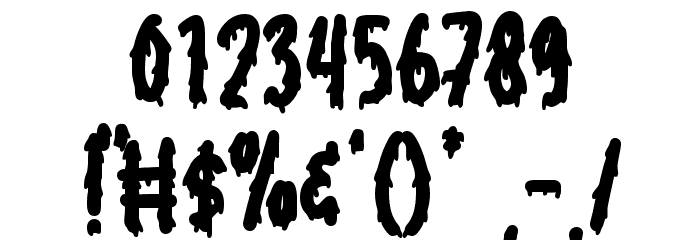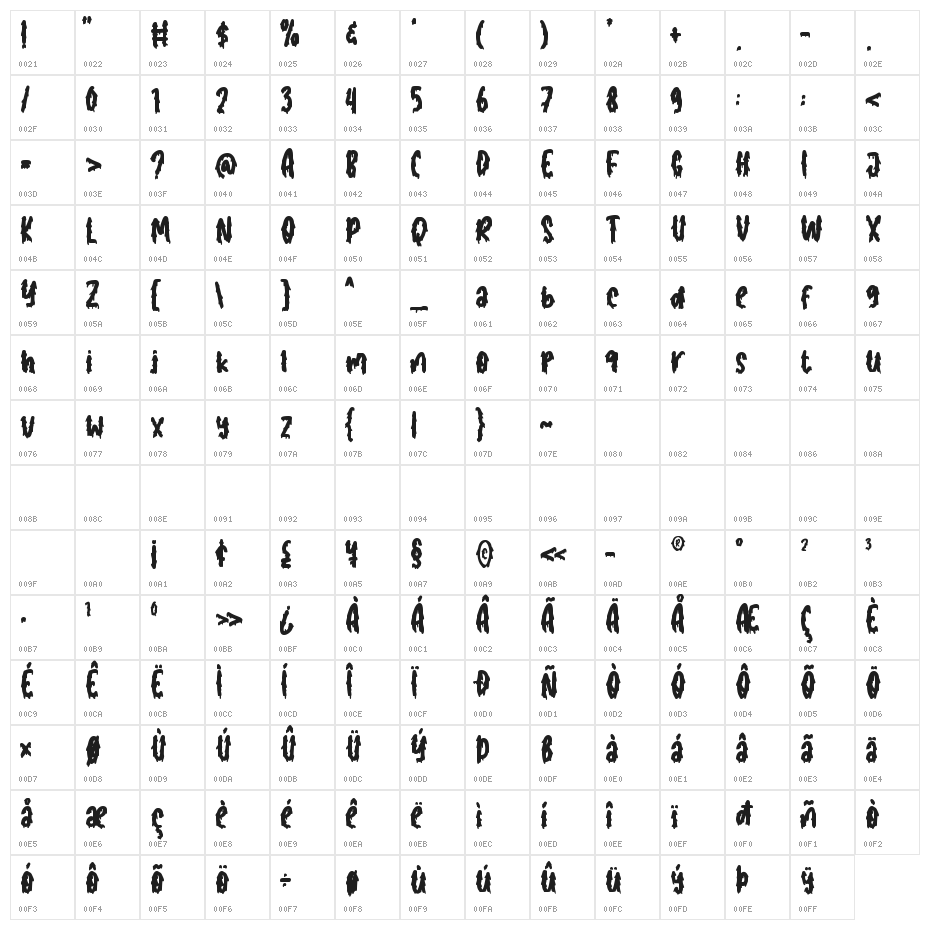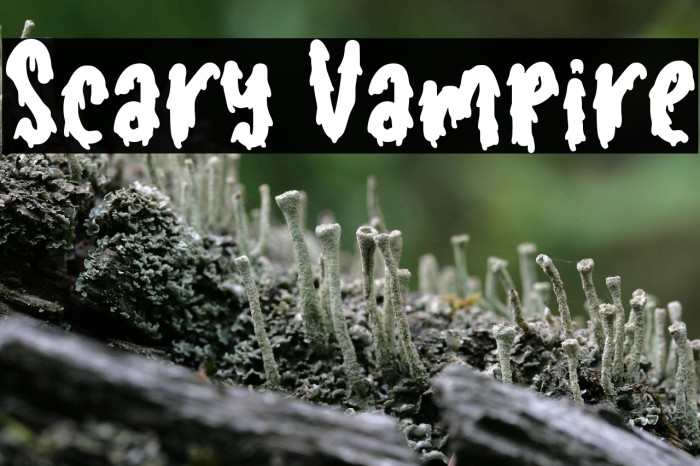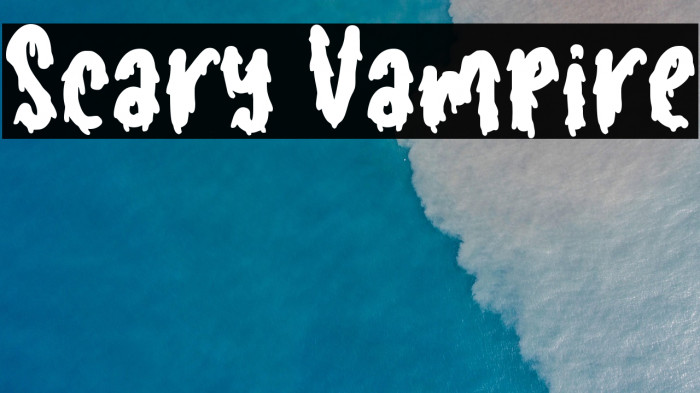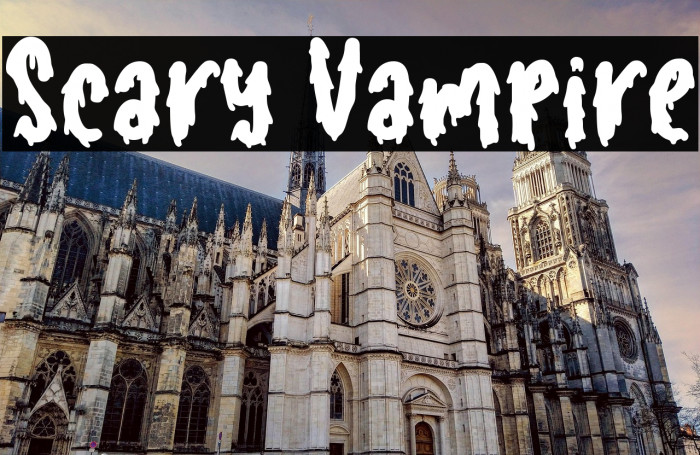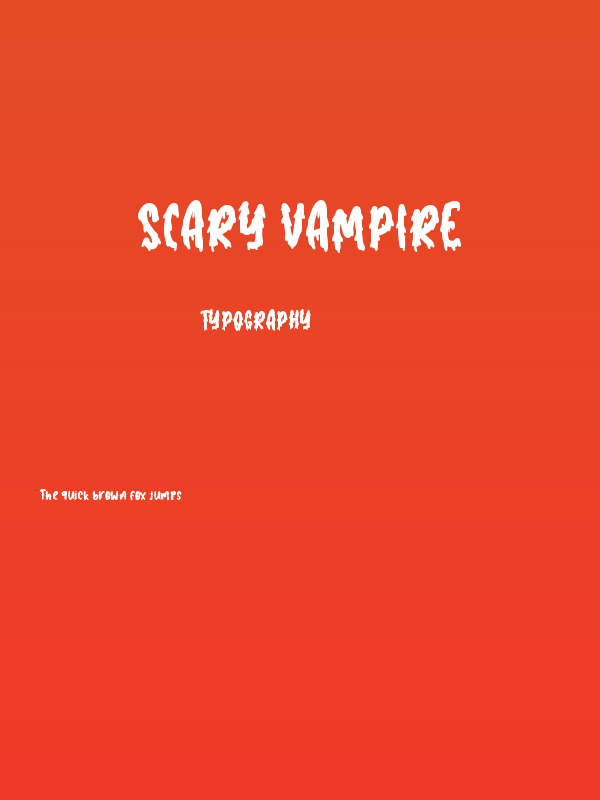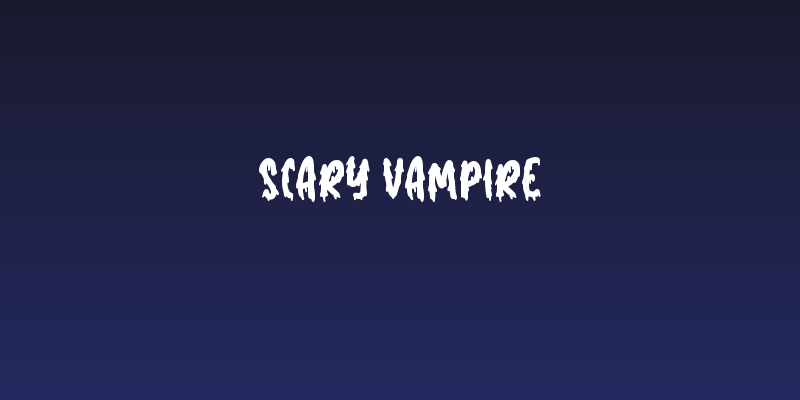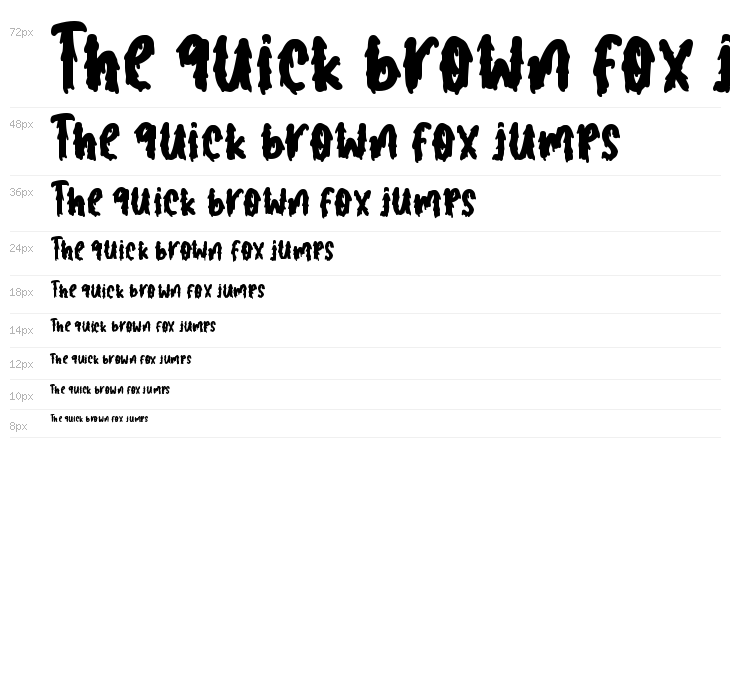
Scary Vampire Font
Scary Vampire Description
This font exudes a chilling and eerie vibe, perfect for Halloween or horror-themed projects. The characters are designed with a dripping effect, resembling blood or slime, which enhances its spooky appearance. The uppercase and lowercase letters maintain a consistent style, with jagged edges and irregular shapes that add to the unsettling aesthetic. Numbers and special characters follow the same theme, ensuring a cohesive look across all text elements. The bold and heavy strokes make it stand out, while the irregularity in form gives it a hand-drawn feel. This font is ideal for creating eye-catching headlines or titles that need to convey a sense of fear or suspense.
| Proposed Projects | Ideal for Halloween invitations, horror movie posters, haunted house flyers, and spooky-themed merchandise. |